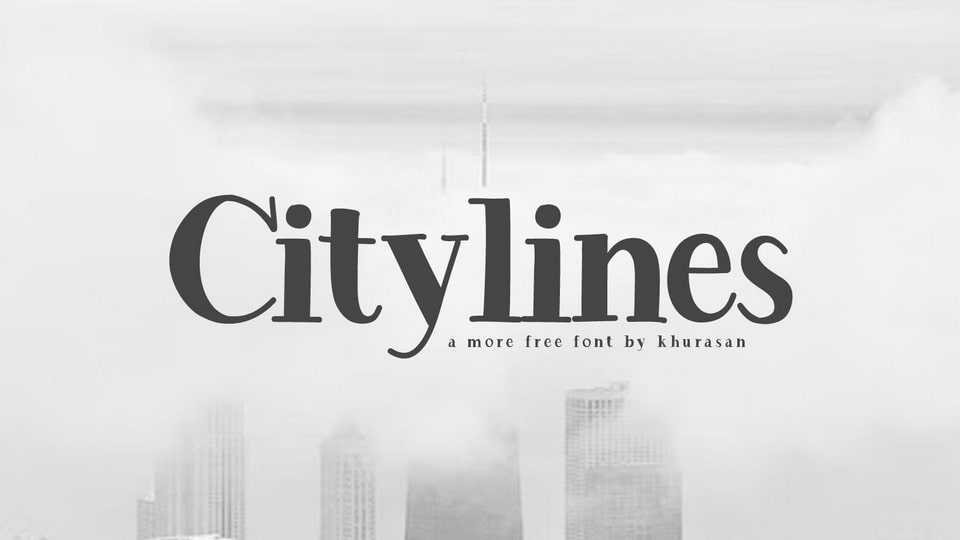
Download Citylines font, a hand-drawn serif typeface that combines the elegance of traditional type with the charm of freehand expression. Each letter boasts a unique blend of graceful serifs and hand-drawn irregularities, creating a captivating interplay of form and spontaneity.